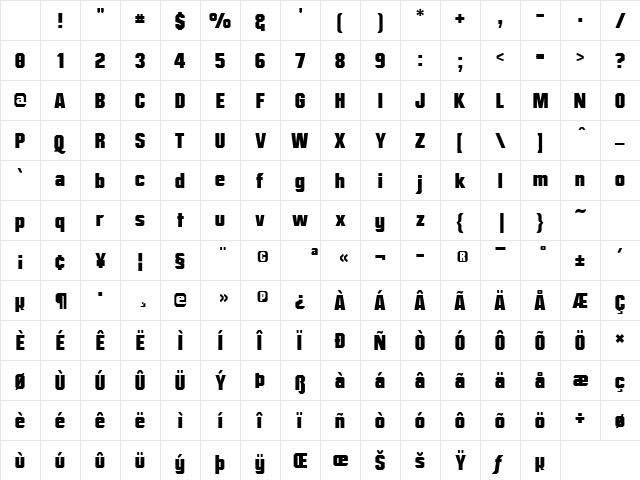
Mister Belvedere is a composed and adaptable typeface that performs quietly and consistently across a wide range of design contexts.
Pro Tip: Use Mister Belvedere in both headline and body roles to test its range before committing to a single application.